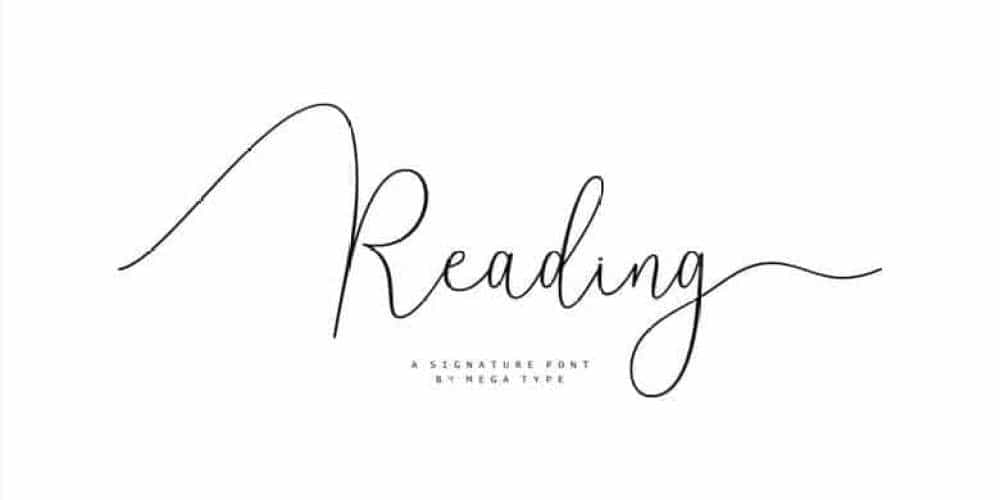
Discover Reading Signature Font Free, part of the Calligraphy collection—a versatile and unique font perfect for adding a personal touch to your projects. Download it for free and enjoy crafting designs with style, from invitations to social media posts. This font is available exclusively for personal use, giving you the freedom to create without limits. Unlock your creativity with Reading Signature Font Free today!